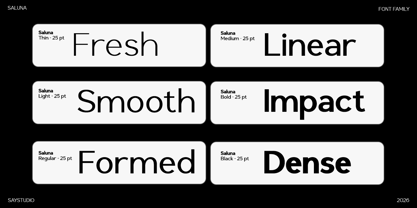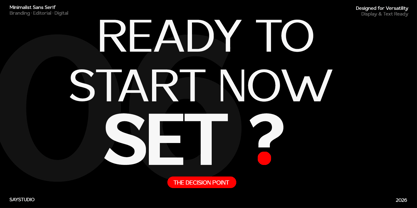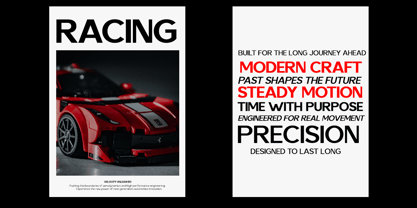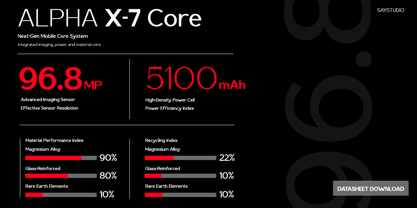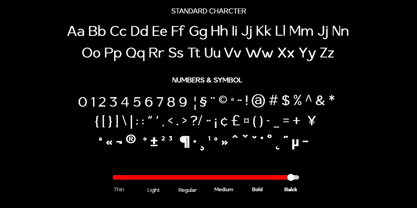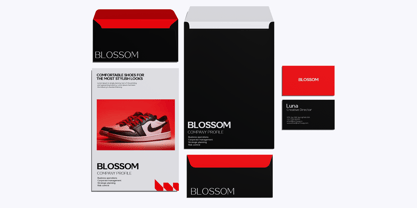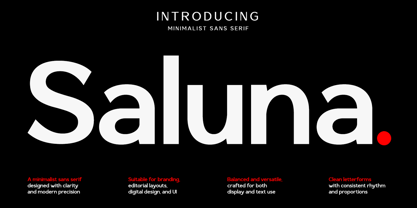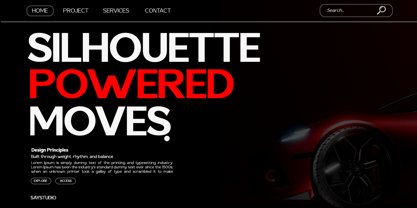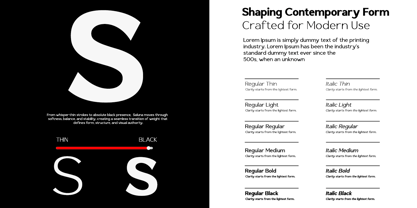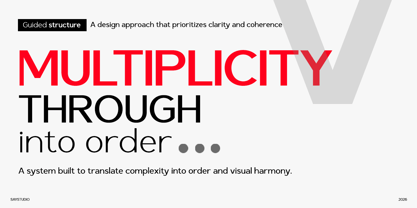
Saluna
by Say Studio
The Saluna Font Family was designed by Mussyayin and published by Say Studio. Saluna contains 12 styles and family package options. More about this family
Saluna is a clean and modern minimalist sans serif typeface tailored for professional and commercial design needs. With its precise geometry and balanced proportions, Saluna offers exceptional readability and a strong contemporary aesthetic, making it ideal for modern branding, editorial layouts, and digital design projects. Its neutral and versatile character allows for seamless pairing with other typefaces while maintaining a visually confident presence on its own. Designed for optimal performance across various platforms, Saluna is highly suitable for logos, brand identities, corporate materials, websites, user interfaces, and marketing visuals. The consistent letterforms and clean spacing ensure reliable performance in both large display sizes and smaller text applications, making it a practical choice for designers engaged in diverse creative projects. Whether you are establishing a startup brand, crafting editorial content, or designing sleek digital products, Saluna delivers a modern sans serif solution that embodies professionalism, adaptability, and future-readiness. This dependable typeface is expertly crafted to support long-term visual identities and enhance commercial design workflows. Thank You, Have a Good Day! Saystudio
Designers: Mussyayin
Foundry: Say Studio